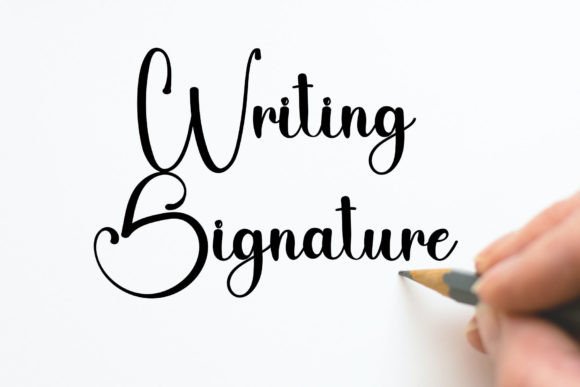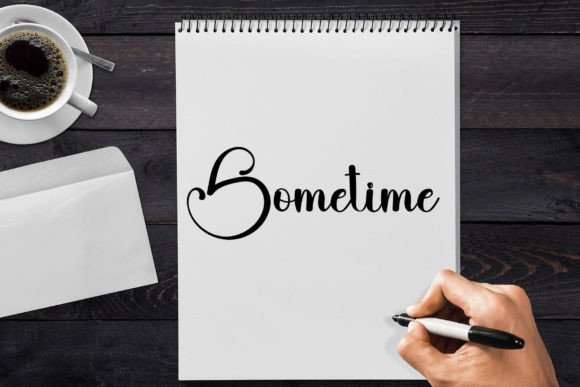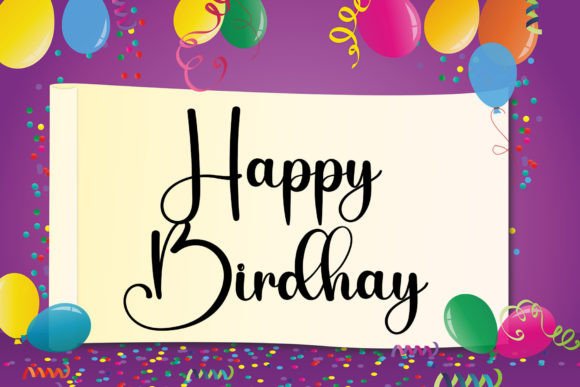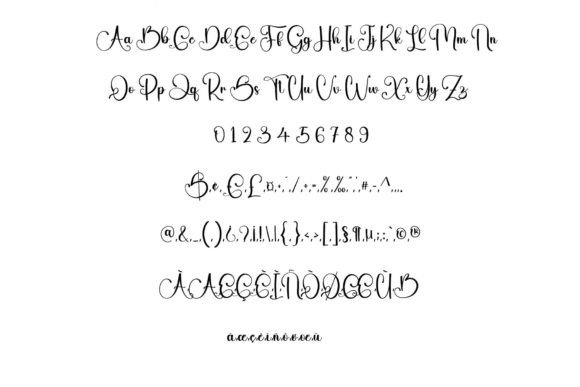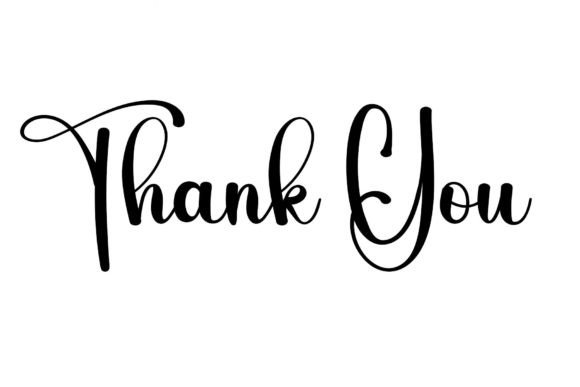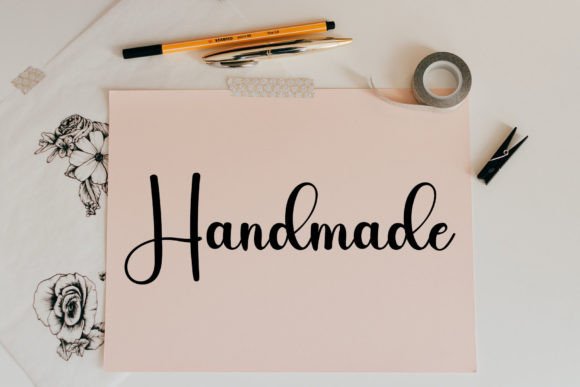
Outline Font
About Outline Font
Chubby is a charming and beautiful handwritten font that exudes sweetness and style. With characters that dance along the baseline, this font brings a playful and luxurious spark to any design project you embark upon. Its unique charm lies in the handwritten strokes that add a personal and organic touch, making it an ideal choice for a variety of creative endeavors.
The playful nature of Chubby injects a sense of joy into designs, making it well-suited for projects that seek to convey a lighthearted and friendly vibe. The characters’ dynamic movement along the baseline creates a visual rhythm, adding a touch of liveliness to the overall design. This quality makes Chubby particularly attractive for projects that aim to stand out with a touch of whimsy and elegance.
The beauty of Chubby extends to its versatility. Whether used in branding, product packaging, invitations, social media graphics, or any other design project, this font adapts seamlessly to various contexts. Its handwritten quality adds an authentic and human element, enhancing the connection between the design and its audience.
Chubby’s ability to add a luxury spark to designs makes it a valuable asset for those seeking to elevate their projects. Whether crafting a logo that exudes sophistication or designing elegant invitations, Chubby’s handwritten charm brings a touch of exclusivity. The font’s playful yet refined demeanor makes it suitable for both casual and upscale applications.
In summary, Chubby is not just a font; it’s a design enhancer that infuses sweetness, beauty, and luxury into your creative projects. Its handwritten style and dynamic baseline create a visual allure that is sure to capture attention and make a lasting impression. Chubby is a delightful choice for anyone looking to add a touch of charm and sophistication to their design toolbox.